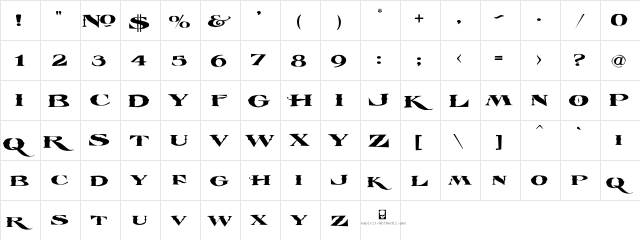
LHF Esoteric 3 Spurs Regular
| Foundry | Chuck Davis for Letterhead Fonts. |
| Designer | Chuck Davis |
Design Context for LHF Esoteric 3 Spurs Typeface
LHF Esoteric 3 Spurs is a composed and adaptable typeface that performs quietly and consistently across a wide range of design contexts.